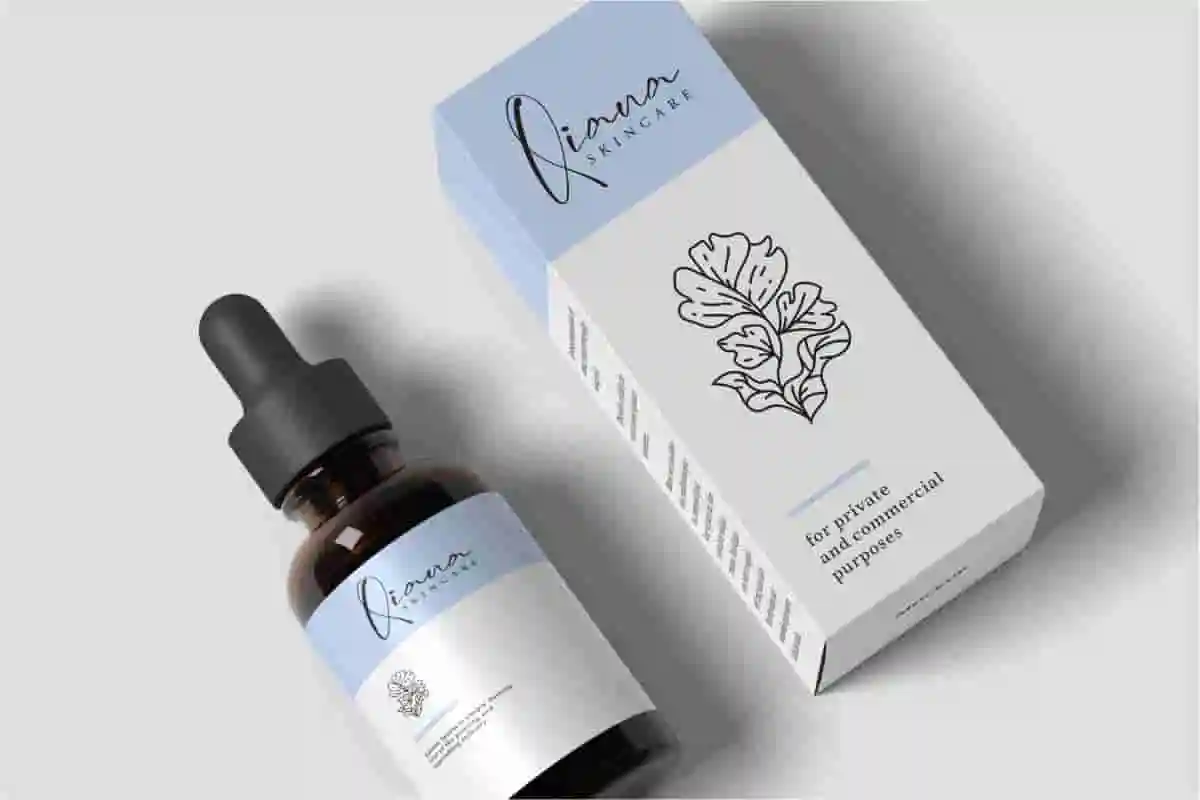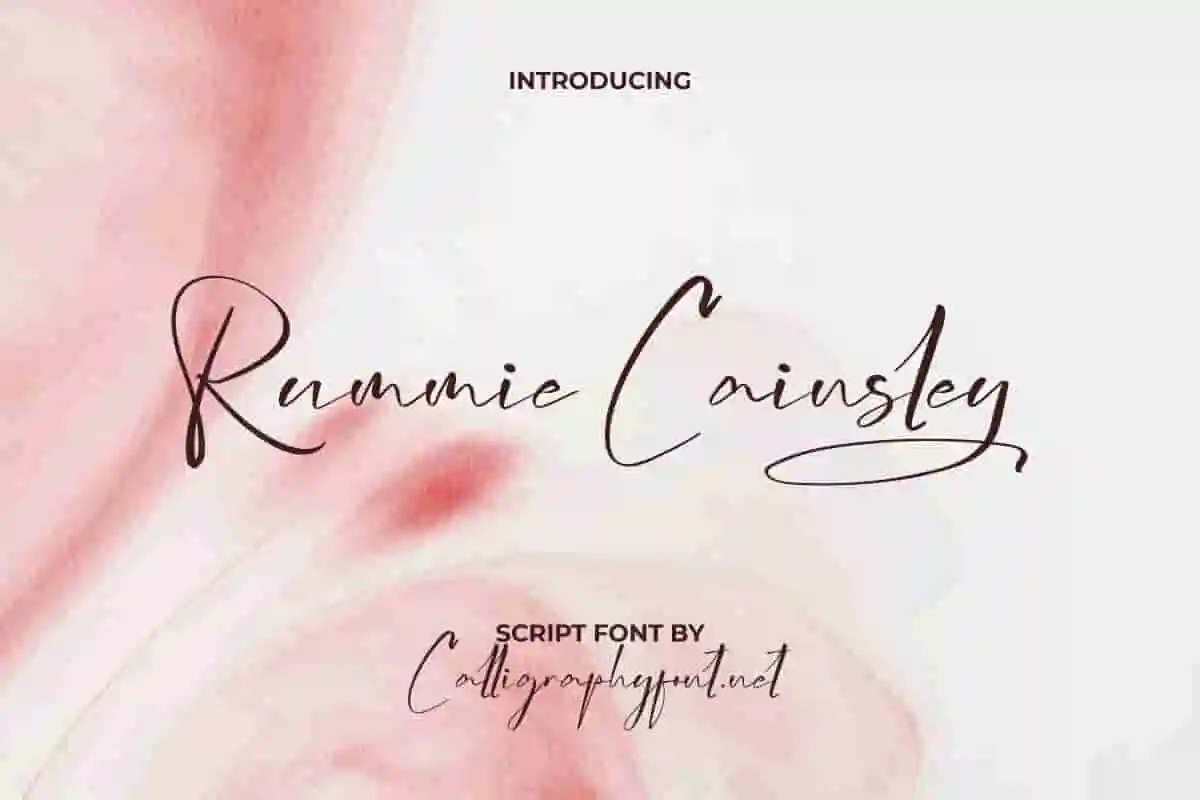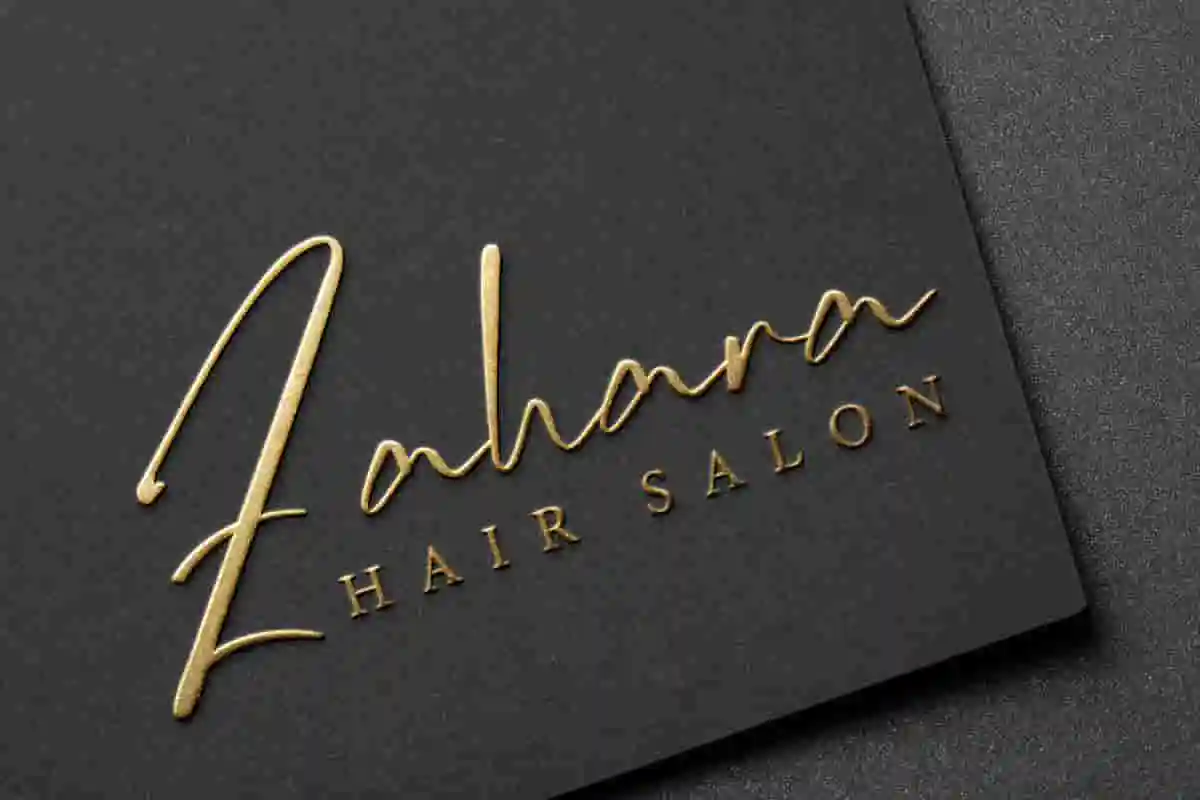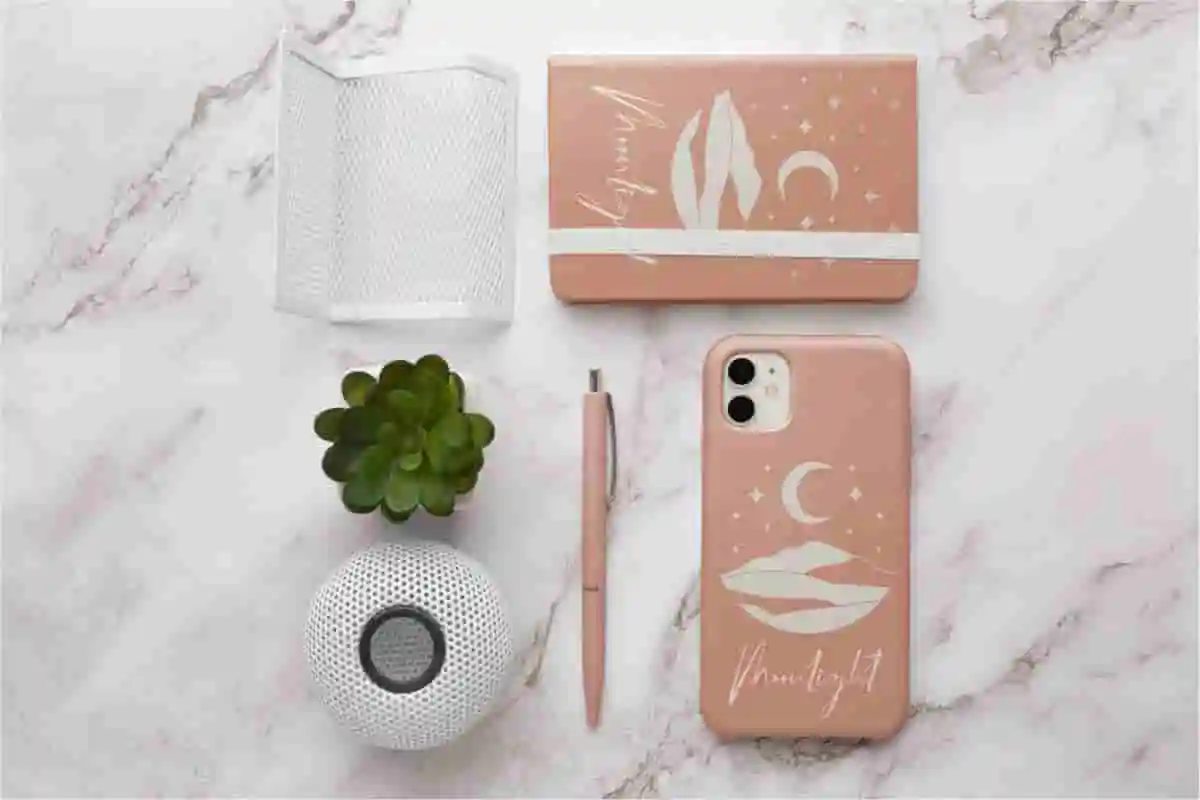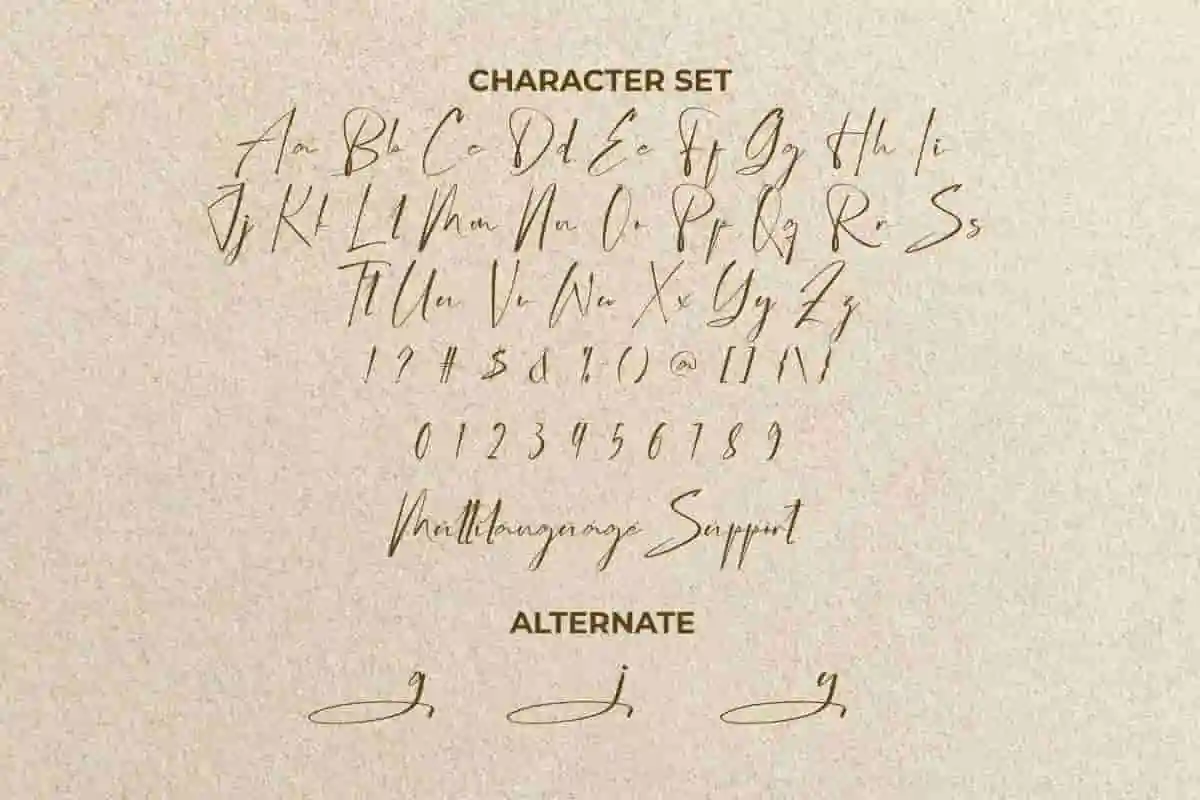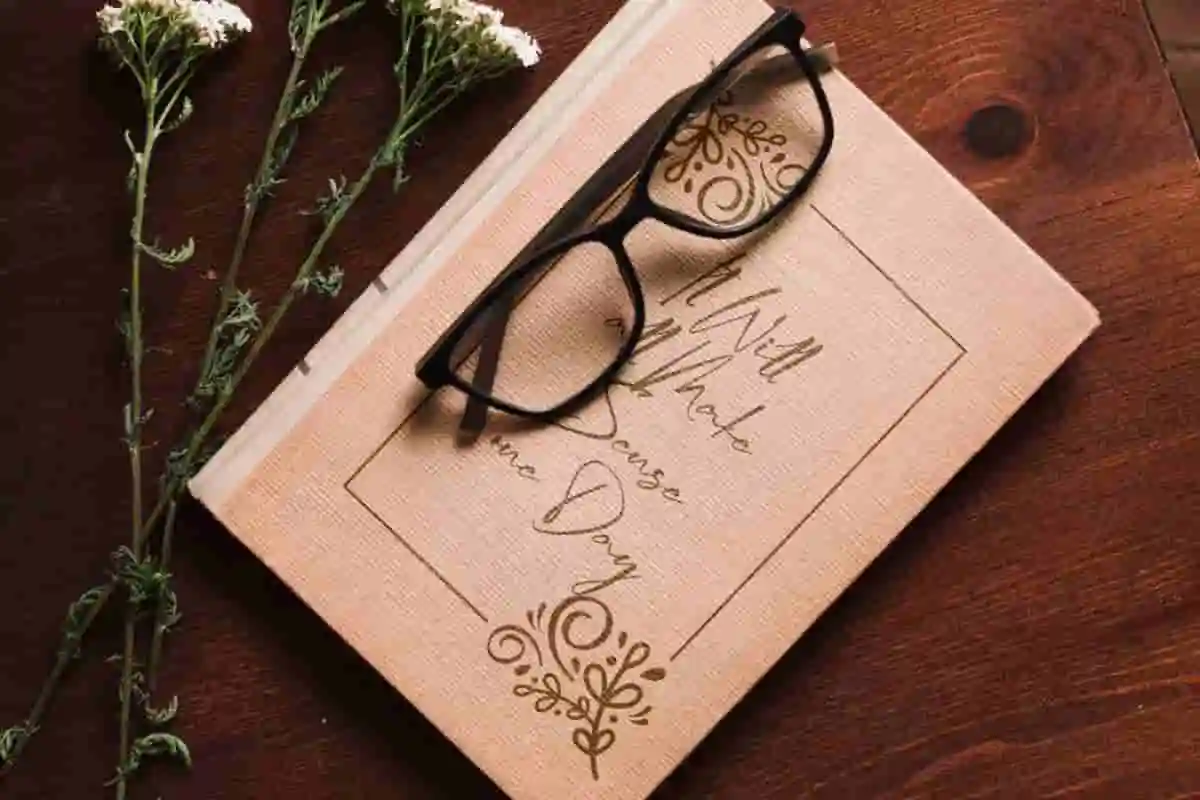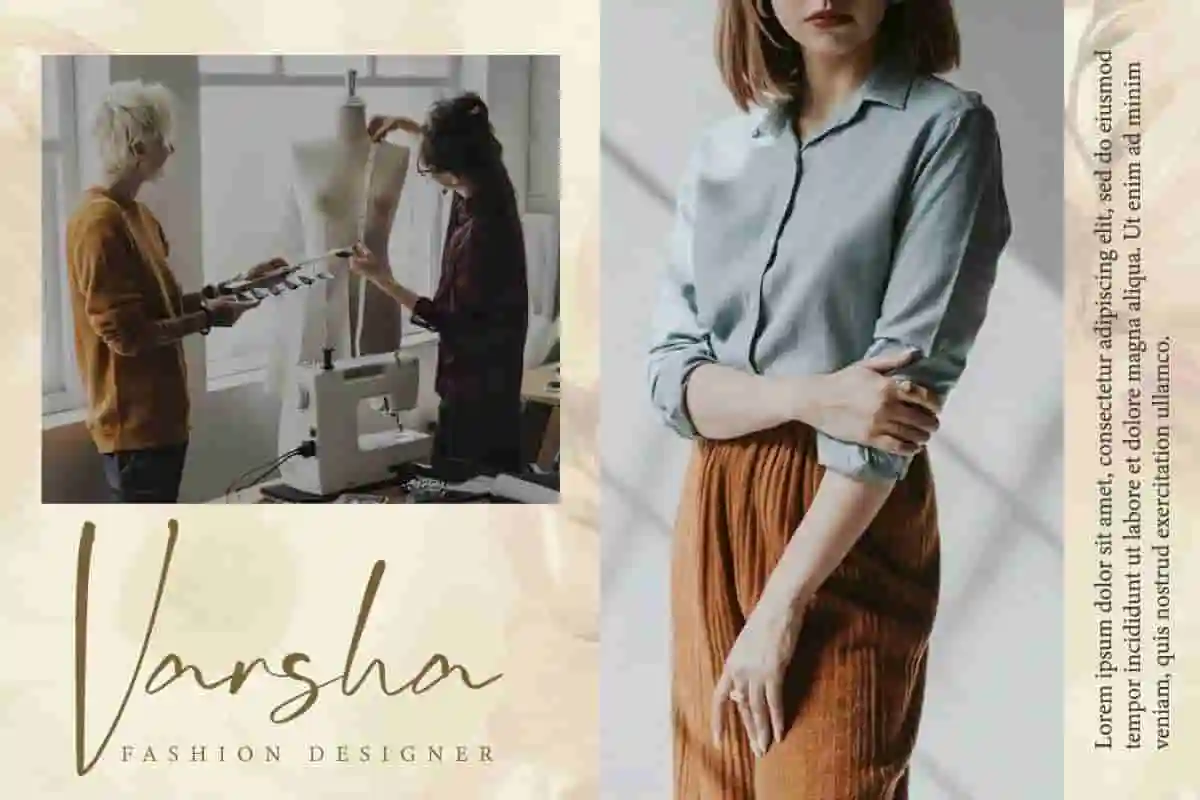
Rummie Cainsley Font
Rummie Cainsley Font is a flawless calligraphy script font. This font will be perfect for boutique, cover, hair salon, product labels, quote, salon, skincare, title, writer, and much more.
Rummie Cainsley Font is a classic script font with a fancy calligraphic look. The first impression when you see this typography is full of tenderness because each letter is carefully made so that it can represent a calm feeling. It is suitable for any industry, such as accessories, boutique, event organizer, florist, furniture, jewelry, printing, publishing, restaurant, skincare, salon, writer, and much more.
Rummie Cainsley Font is synonymous with an irregular brush giving it a natural and smooth letterform making it a great choice for use as main text or paired with other font types. This font will be perfect for any project, such as brand logo, catalog, cover, embossed design, invitation, label, packaging design, quote, screen print, signage, stationery, sticker, title, and other projects that require a touch of elegance.
Rummie Cainsley Font comes with a full set of Uppercase and Lowercase Basic Characters, Number, a large range of Punctuation and Symbol. It also equipped with Alternate characters which will enhance the artistic value of the font. In order to use alternative characters, usually we just need to block the end letters and select alternative letters on glyphs option. It supports multilingual characters and ready to use both on Windows machine or Mac with simple installations. It’s tested to work well in the Adobe Apps (Illustrator, Adobe InDesign, Adobe Photoshop) CorelDraw, and others. PUA Encode Characters means you can access all the characters easily – Fully accessible without additional design software.